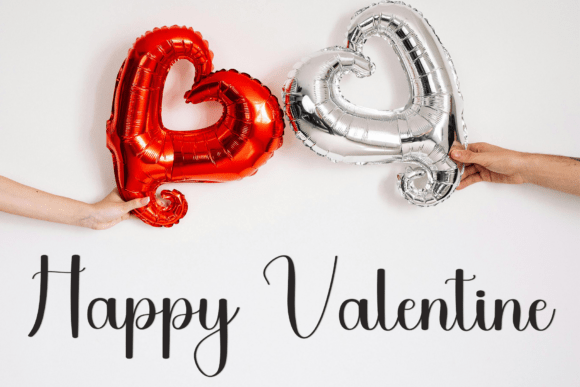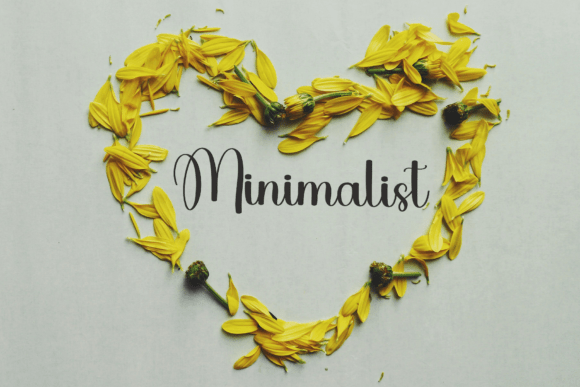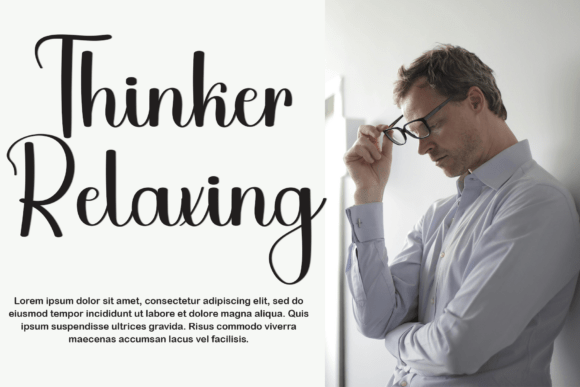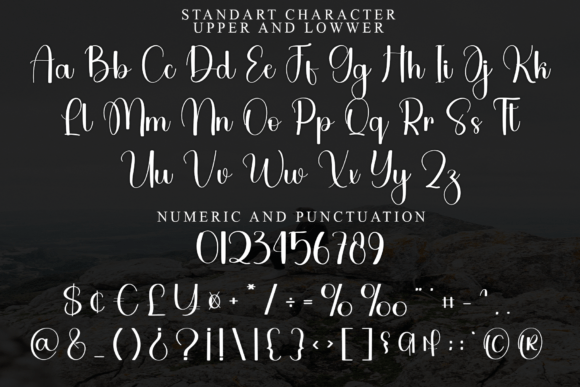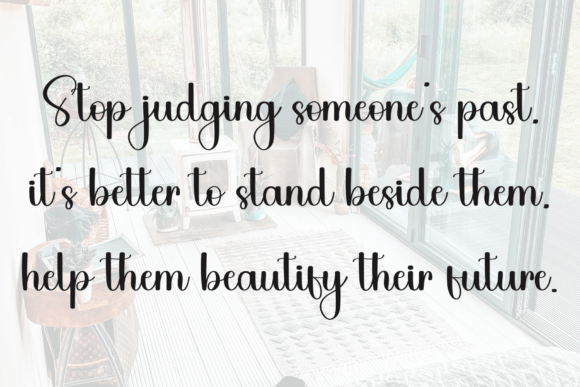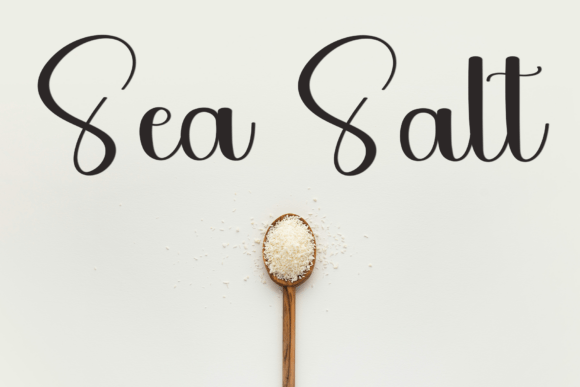
Earring Font: Add a Touch of Holiday Magic to Your Designs
The holiday season is upon us, and what better way to capture its spirit than with a festive and merry typeface? Introducing Earring Font, a decorative font that brings a touch of enchantment to your designs. With its whimsical flair and nostalgic ambiance, this font is perfect for greeting cards, gift tags, and holiday-themed projects.
What Makes Earring Font Special?
Earring Font is a unique and eye-catching typeface that stands out from the rest. Its decorative elements and whimsical design make it perfect for adding a touch of holiday magic to your designs. Whether you’re a designer, crafter, or DIY enthusiast, this font is sure to bring a smile to your face and a twinkle to your creations.
Earring Font is specifically designed with the holiday season in mind. Its festive and merry design makes it perfect for a variety of projects, including:
- Greeting cards: Add a personal touch to your holiday cards with Earring Font’s whimsical and decorative design.
- Gift tags: Make your gifts stand out with custom gift tags featuring Earring Font.
- Holiday-themed projects: From invitations to party decorations, Earring Font is the perfect choice for any holiday project.
Bringing a Cheerful and Nostalgic Ambiance
Earring Font brings a cheerful and nostalgic ambiance to your words, perfect for capturing the spirit of the holiday season. Its whimsical design and decorative elements evoke a sense of wonder and enchantment, making it perfect for projects that require a touch of magic.
Why Designers and Crafters Love Earring Font
Earring Font is a favorite among designers and crafters for several reasons:
- Unique and eye-catching design: Earring Font stands out from the rest, making it perfect for designers and crafters who want to add a touch of personality to their projects.
- Versatile: Earring Font is perfect for a variety of projects, from holiday cards to party decorations.
Earring Font is a festive and merry typeface that’s perfect for capturing the spirit of the holiday season. With its decorative elements and whimsical flair, it adds a touch of enchantment to your designs. Whether you’re a designer, crafter, or DIY enthusiast, Earring Font is sure to bring a smile to your face and a twinkle to your creations. So why wait? Get your hands on Earring Font today and let the magic begin!